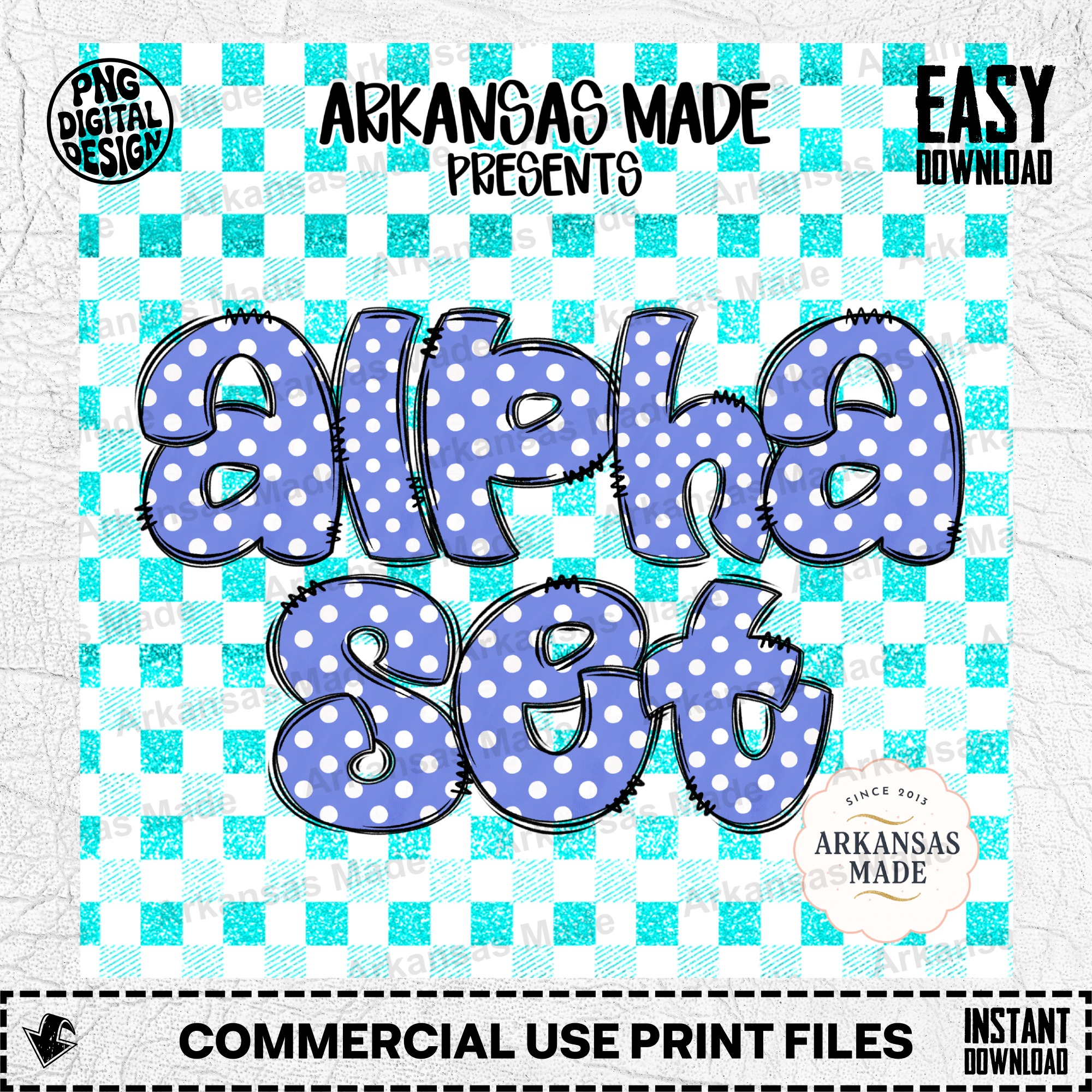
Alpha PNG Set | Polka Dot Letters Doodle Alphabet, Cute Stitched Font Sublimation Design, Periwinkle Digital Download Bundle
Elevate your designs with this adorable Alpha PNG Set featuring charming polka dot letters and a unique stitched doodle outline. Perfect for sublimation projects! Unleash your creativity with this whimsical digital download alphabet bundle. Ideal for crafters, small business owners, and parents creating personalized items like custom t-shirts, tumblers, and nursery decor. These cute periwinkle and white letters add a playful touch to any DIY project, making unique gifts for birthdays or baby showers.